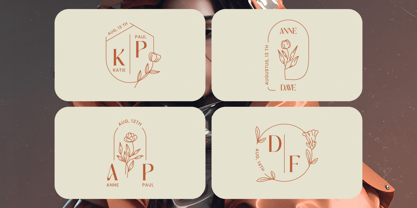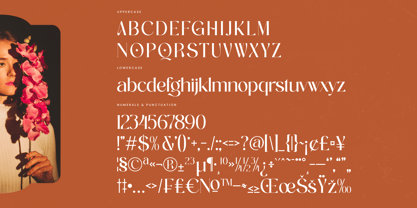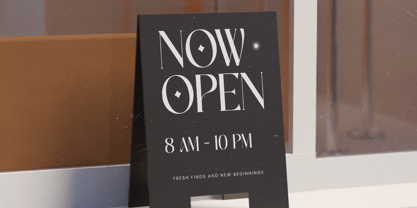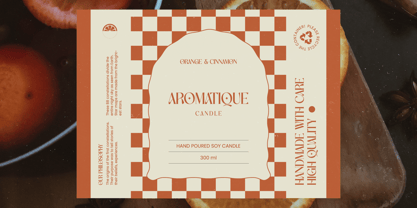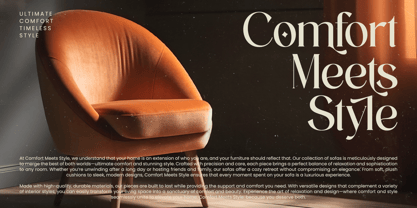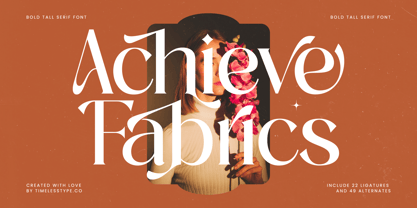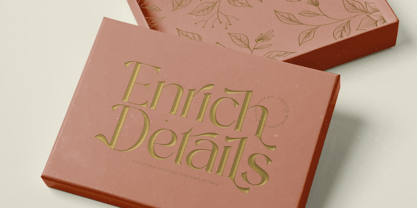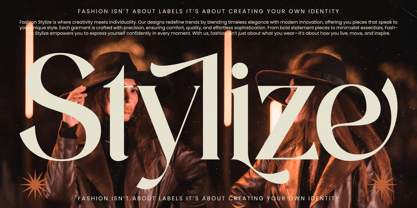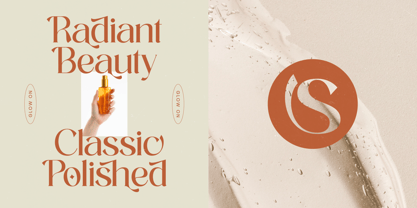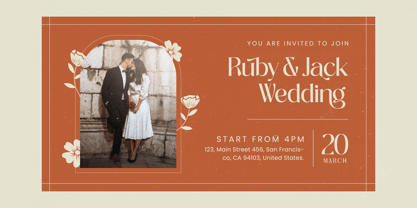
Achieve Fabrics
by Timelesstype Studio
The Achieve Fabrics Font Family was designed by Heru Utama Putra and published by Timelesstype Studio. Achieve Fabrics contains 2 styles and family package options.
Achieve Fabrics - Bold Tall Serif Font , from Timelesstype, Suitable for any projects such as: logos, branding projects, homeware designs, product packaging, mugs, quotes, posters, shopping bags, t-shirts, book covers, name card, invitation cards, greeting cards, label, photography, watermark, special events, and all your other luxury and beautiful projects that need a Luxury Serif taste.
Designers: Heru Utama Putra
Publisher: Timelesstype Studio
Foundry: Timelesstype Studio
Design Owner: Timelesstype Studio